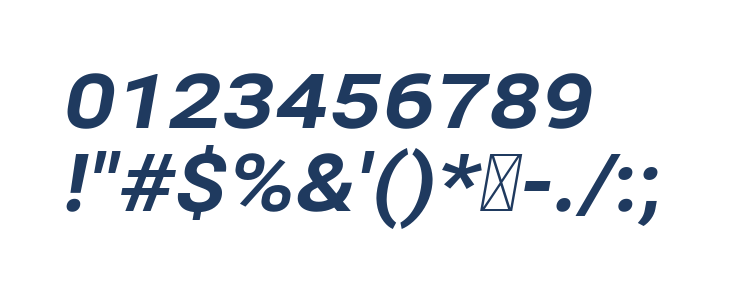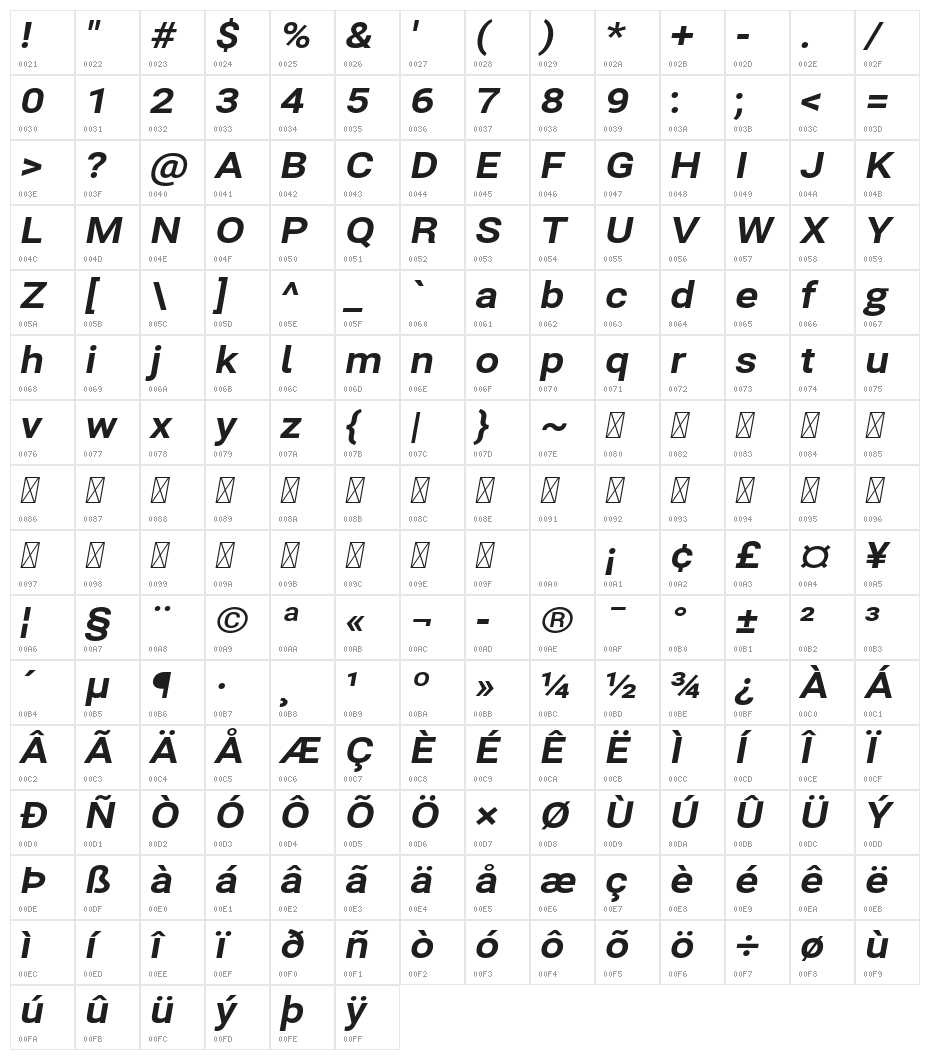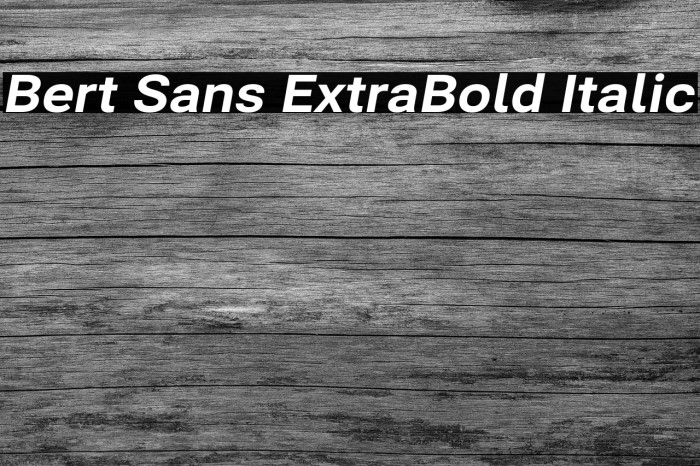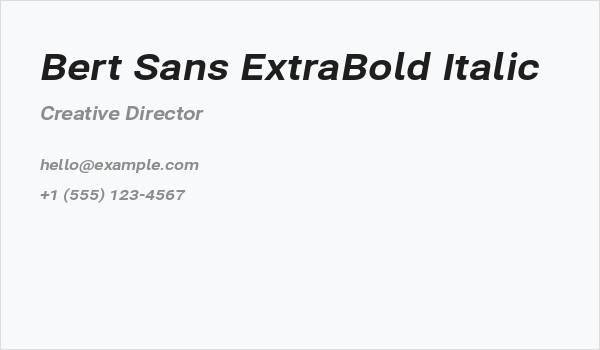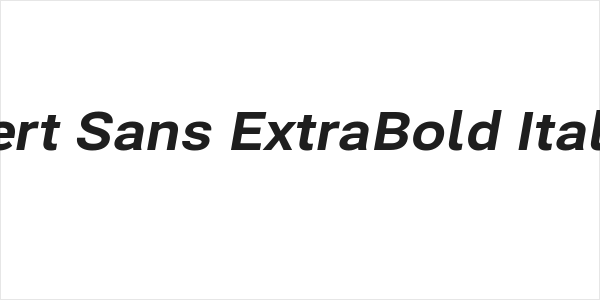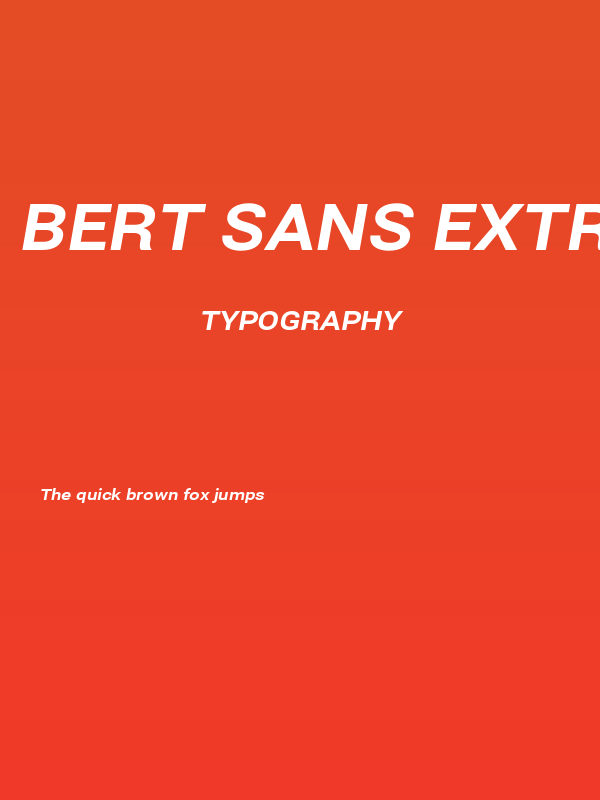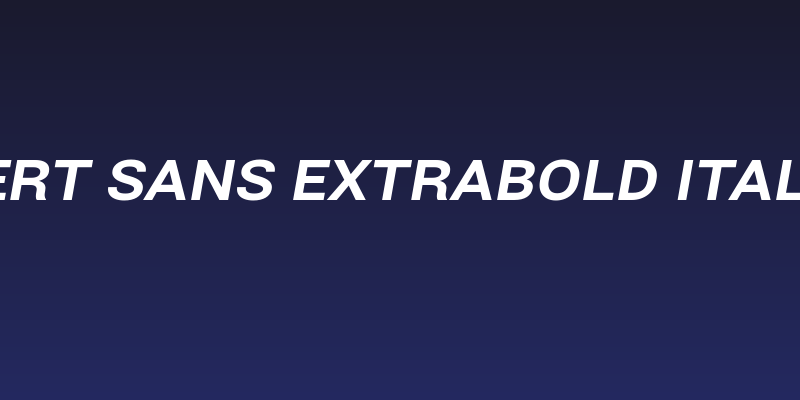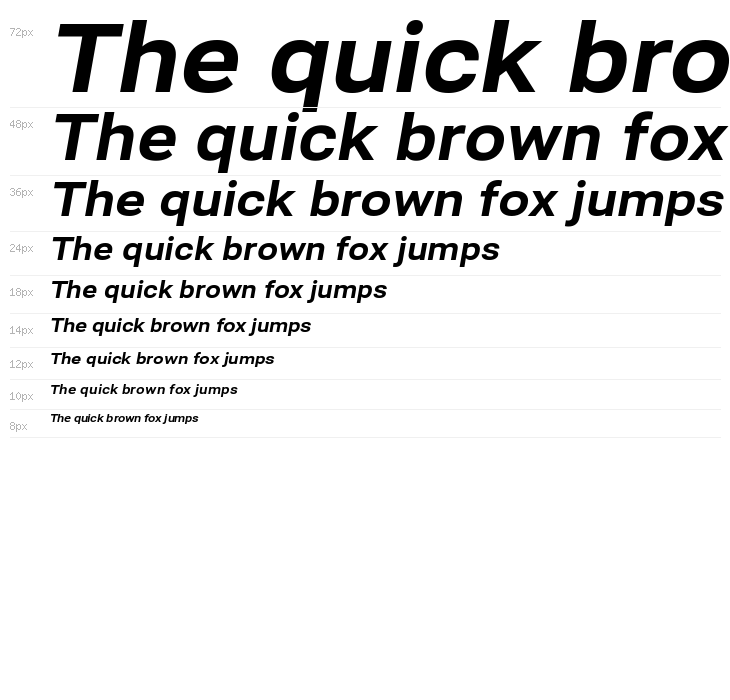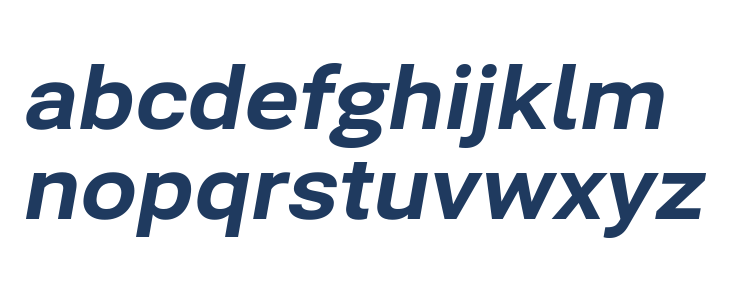
Bert Sans ExtraBold Italic Font
Bert Sans ExtraBold Italic Description
This font features a bold and dynamic sans-serif style with an italic slant, giving it a modern and assertive appearance. The characters are well-defined with a consistent stroke weight, providing a strong visual impact. The uppercase and lowercase letters maintain a uniformity that ensures readability, while the numbers and special characters are clear and distinct. The italic angle adds a sense of motion and energy, making it suitable for attention-grabbing designs. The overall design is clean and professional, ideal for contemporary projects.